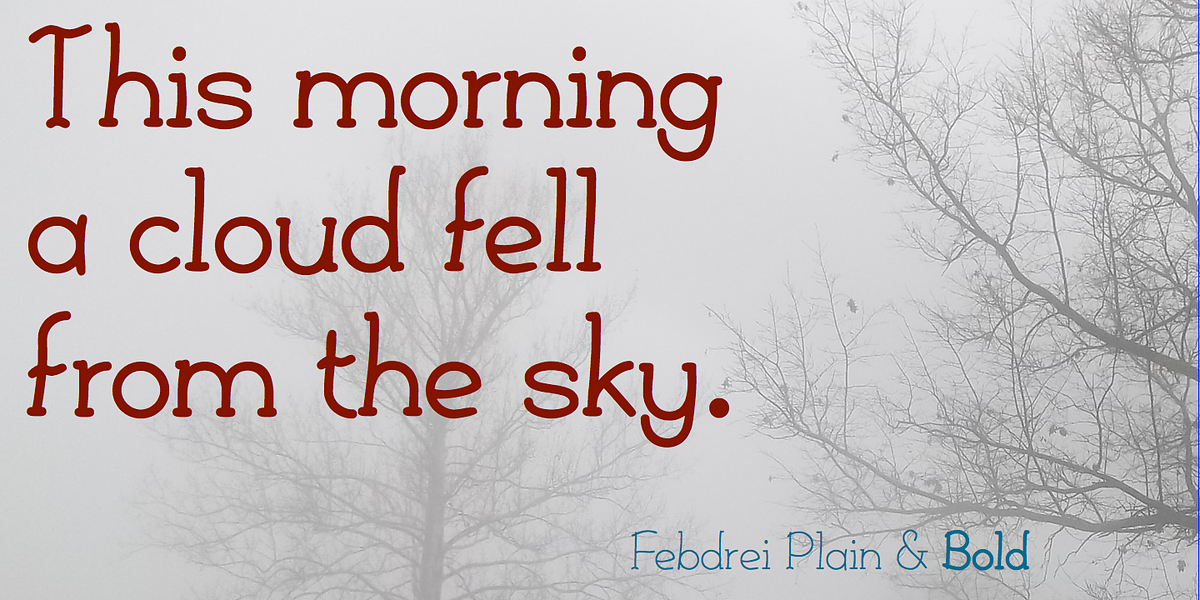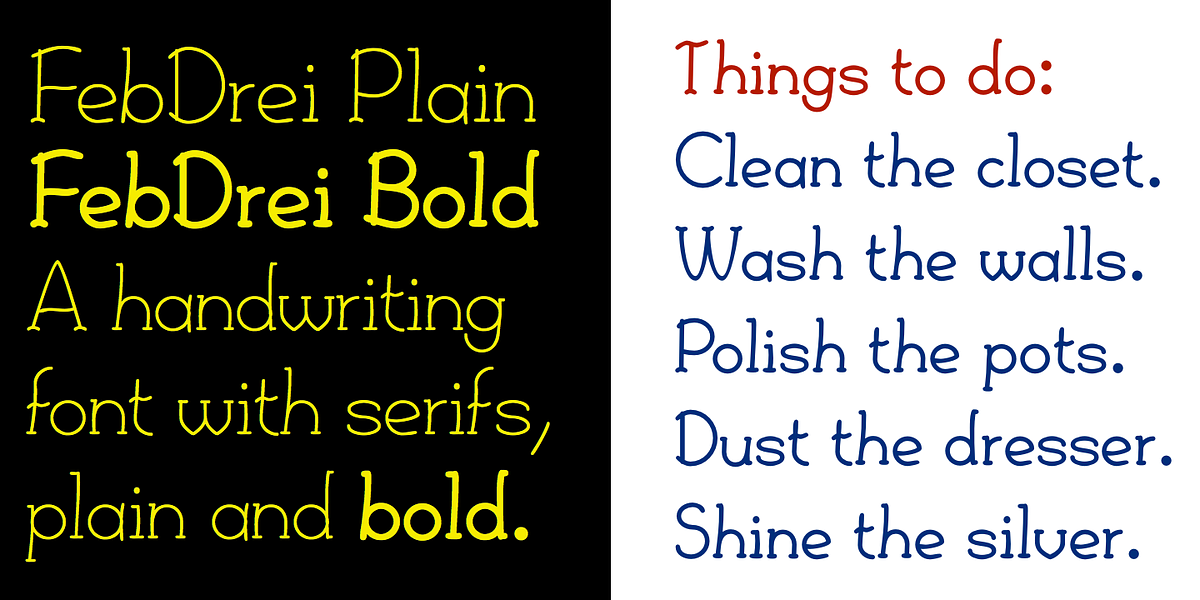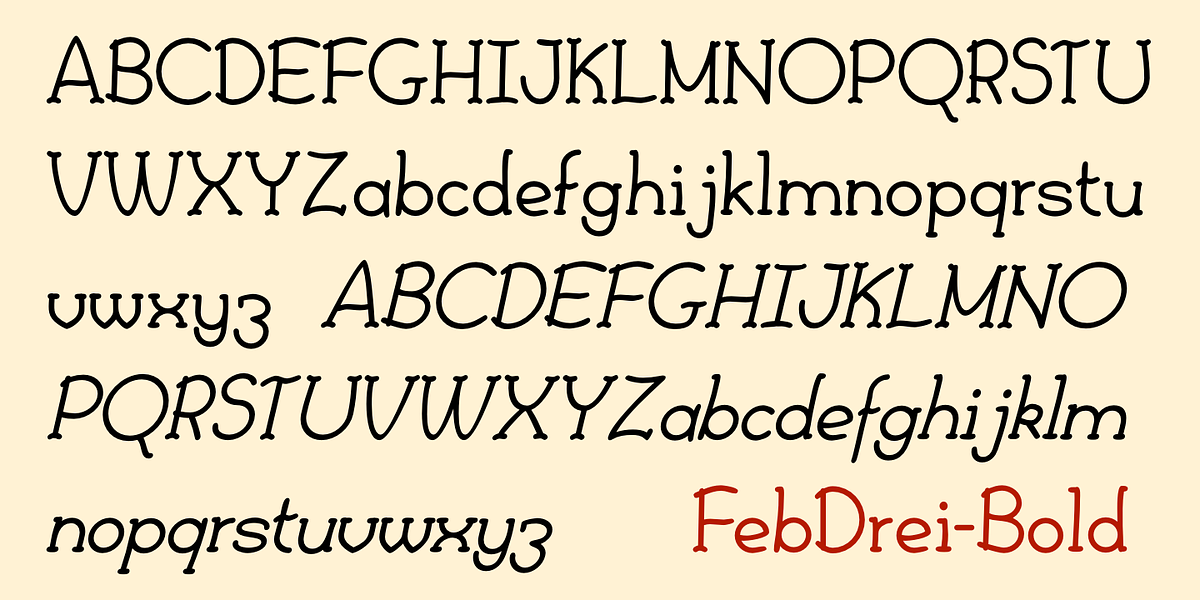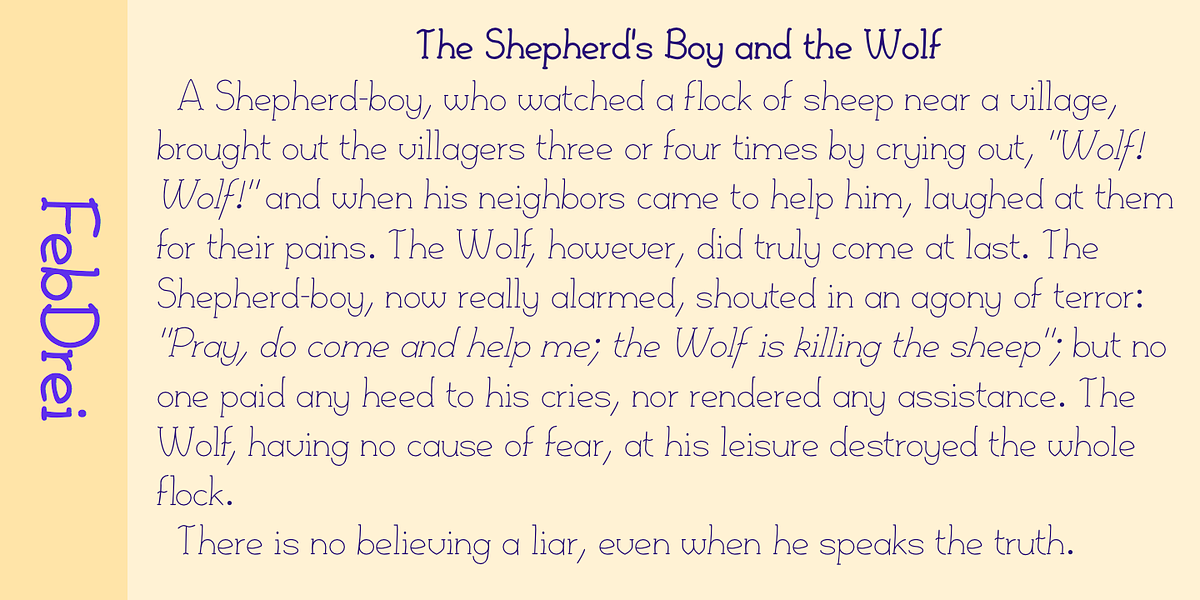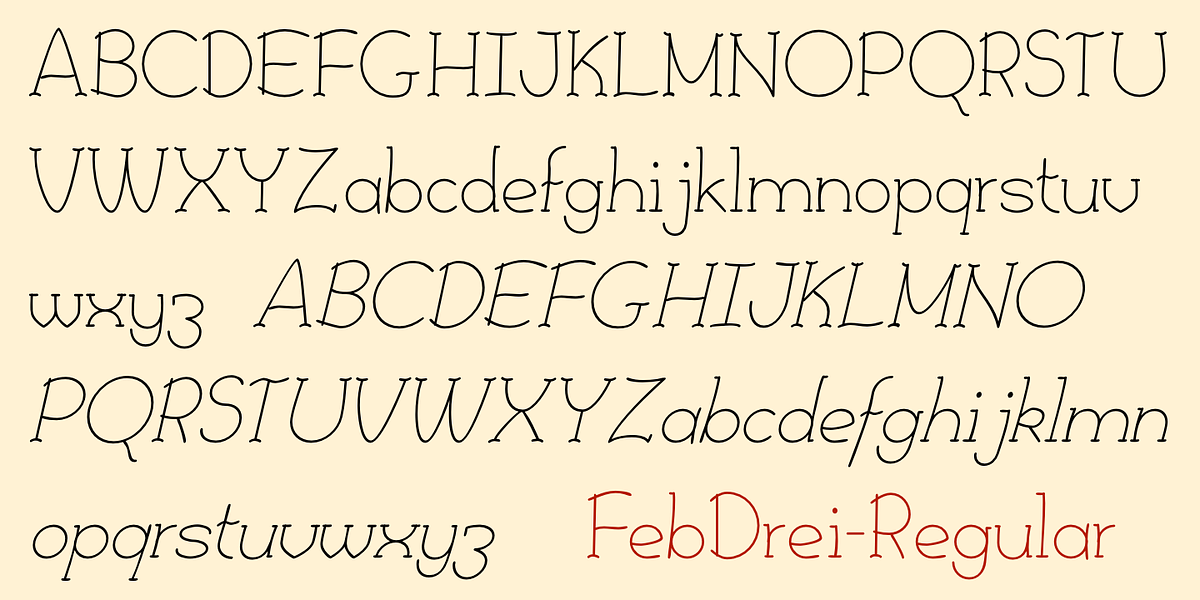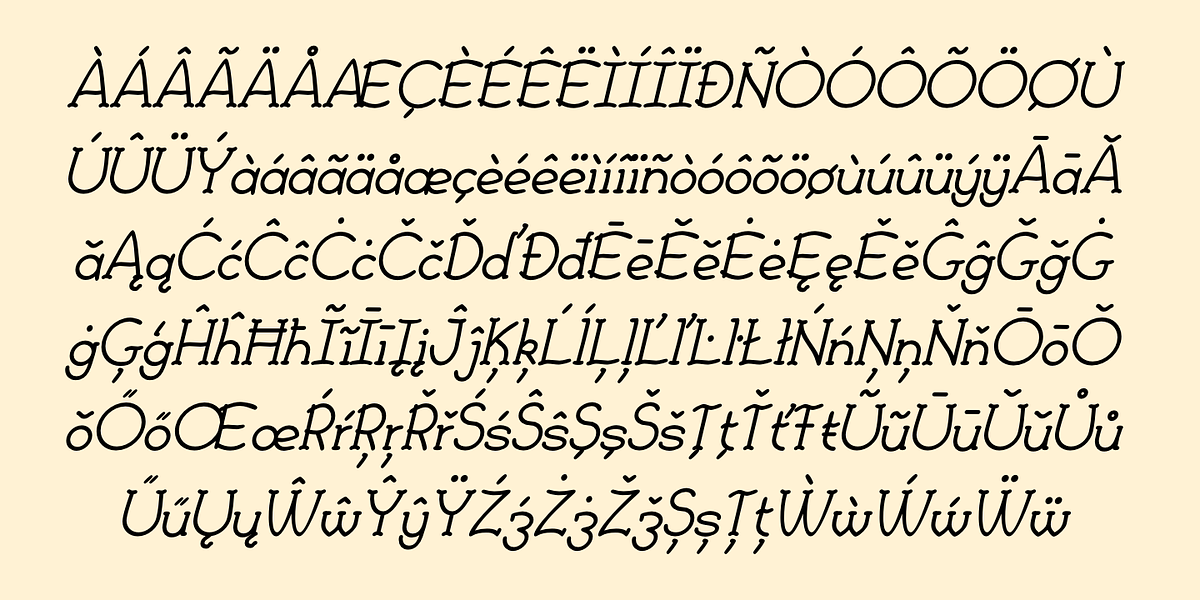
FebDrei
FebDei is a humanist sans serif font designed to resemble neat handwriting. It features low contrast between thick and thin strokes and includes tiny serifs, giving it a unique character. The font comes in two weights - plain and bold - each with italics. Its informal and meticulous nature makes it suitable for handwriting emulation, note-taking, and casual design projects.